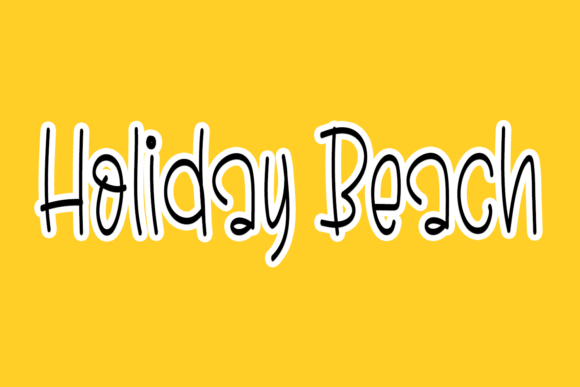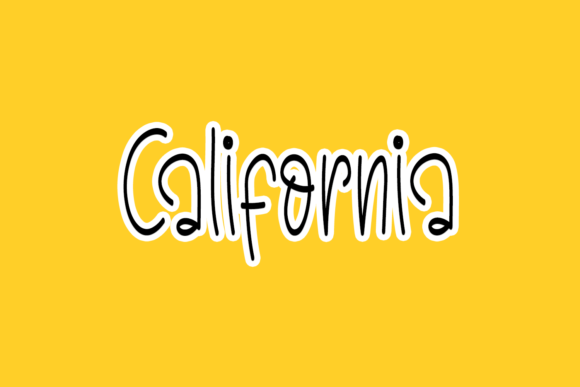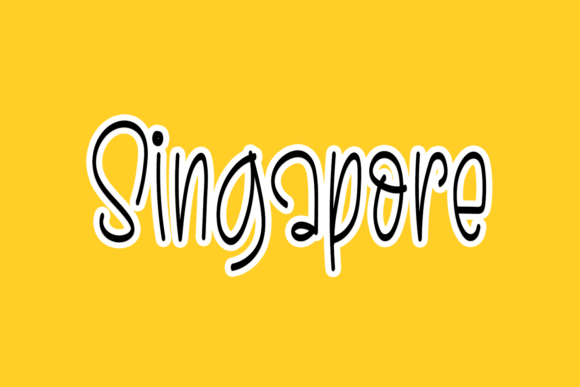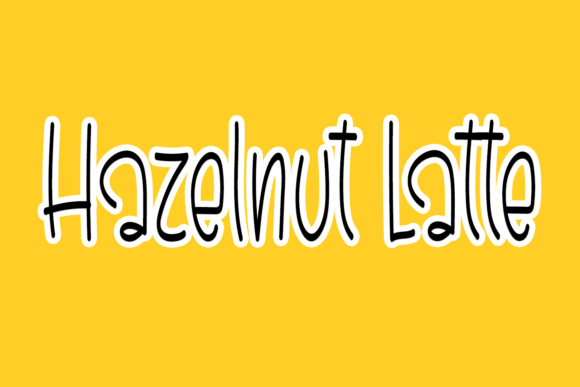
Get Ready to Go Bananas with Your Designs
Have you ever been in the middle of a creative project, surrounded by scraps of paper, colored pencils, and half-finished ideas, when suddenly a burst of inspiration hits you? The perfect font pops into your mind, and you can’t wait to bring your vision to life. That’s exactly what happened to many designers when they discovered the Banana Boe Font.
This adorable handwritten font is designed to add a playful touch to any project. Whether you’re crafting a birthday card, designing a digital presentation, or creating a handmade gift, Banana Boe Font is the perfect companion. Its quirky charm and effortless feel make it a valuable addition to any designer’s toolkit.
With Banana Boe Font, the possibilities are endless. From whimsical illustrations to heartfelt messages, this font brings a smile to every project. So why settle for a generic font when you can add a dash of personality with the Banana Boe Font?
- Unique Characteristics: The font features a unique blend of playful and modern elements, with an emphasis on rounded shapes and soft lines, making it perfect for creating a friendly and approachable tone in designs.
- Style Options: The font comes in various style options, including Regular, Bold, Italic, and Bold Italic, allowing designers to add depth and variety to their designs.
Designer Review: Banana Boe Font
Overall, I think the Banana Boe Font is a fun, energetic addition to any design project. ✨ The font’s playful, handwritten feel is perfect for capturing the attention of younger audiences or adding a touch of whimsy to a brand’s aesthetic.
The font’s versatility is also a major plus. It can be used for both display and body text, making it a great choice for a wide range of applications. ✨ Additionally, the font’s customization options allow designers to fine-tune the look and feel to suit their specific needs.
However, there are a few limitations to be aware of. ⚠️ For one, the font may not be the best choice for projects requiring a more formal or professional tone. Additionally, the font’s irregularities can sometimes make it difficult to read, particularly in smaller sizes.
Here are a few specific pros and cons:
- ✨ Playful, handwritten feel perfect for capturing attention
- ✨ Versatile, suitable for display and body text
- ✨ Customization options allow for fine-tuning
- ⚠️ May not be suitable for formal or professional projects
- ⚠️ Irregularities can make it difficult to read in smaller sizes
Overall, I think the Banana Boe Font is a solid choice for designers looking to add some personality to their projects. With its playful feel and customization options, it’s a great option for a wide range of applications.
For best results, use Banana Boe Font in designs that require a playful and energetic feel.
1. Social media graphics and ads.
2. Children’s book illustrations and covers.
3. Party invitations and decorations.
4. Food and beverage branding.